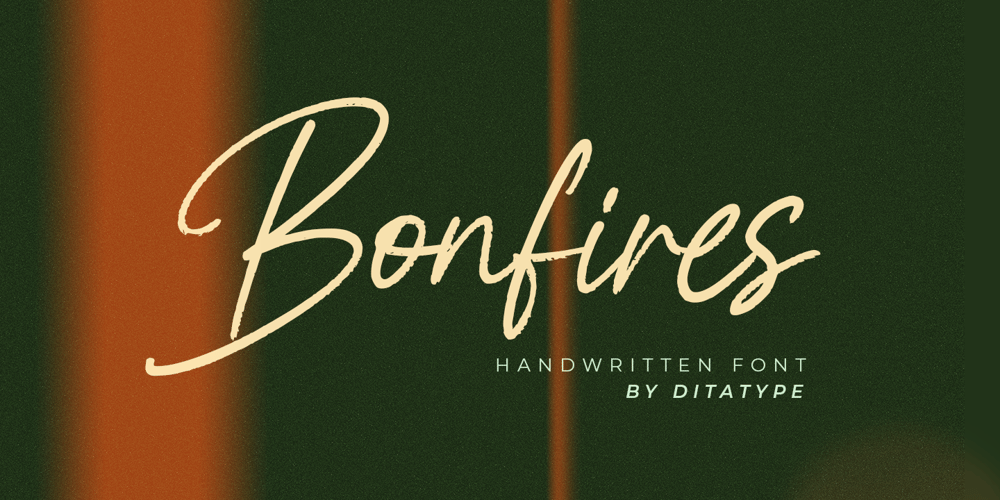
Bonfires Font Family was designed by Donis Miftahudin and published by Ditatype. Bonfires contains 1 styles and family package options. Bonfires is an elegant font in beautiful handwriting styles interconnected to each other to create smooth, continuous flows. The letters are shaped in curvy, smooth pen lines and the low letter contrasts can express smooth nuances. Details of this font are crucial as each curve and connection must look equal and proportional to create visually balanced, solid displays. Furthermore, its smooth, connected texts are able to let readers’ eyes stay warm and comfortable. In addition, you may enjoy the available features here.Features: Ligatures Multilingual Supports PUA Encoded Numerals and Punctuations Bonfires fits best for any design projects requiring casual, personal displays such as greeting cards, merchandise designs, and any casual-related designs. In web designs, this script font is perfectly applicable for blogs and sites to show intimate and personal nuances to the contents. Find out more ways to use this font by taking a look at the font preview.Thanks for purchasing our fonts. Hopefully, you have a great time using our font. Feel free to contact us anytime for further information or when you have trouble with the font. Thanks a lot and happy designing.